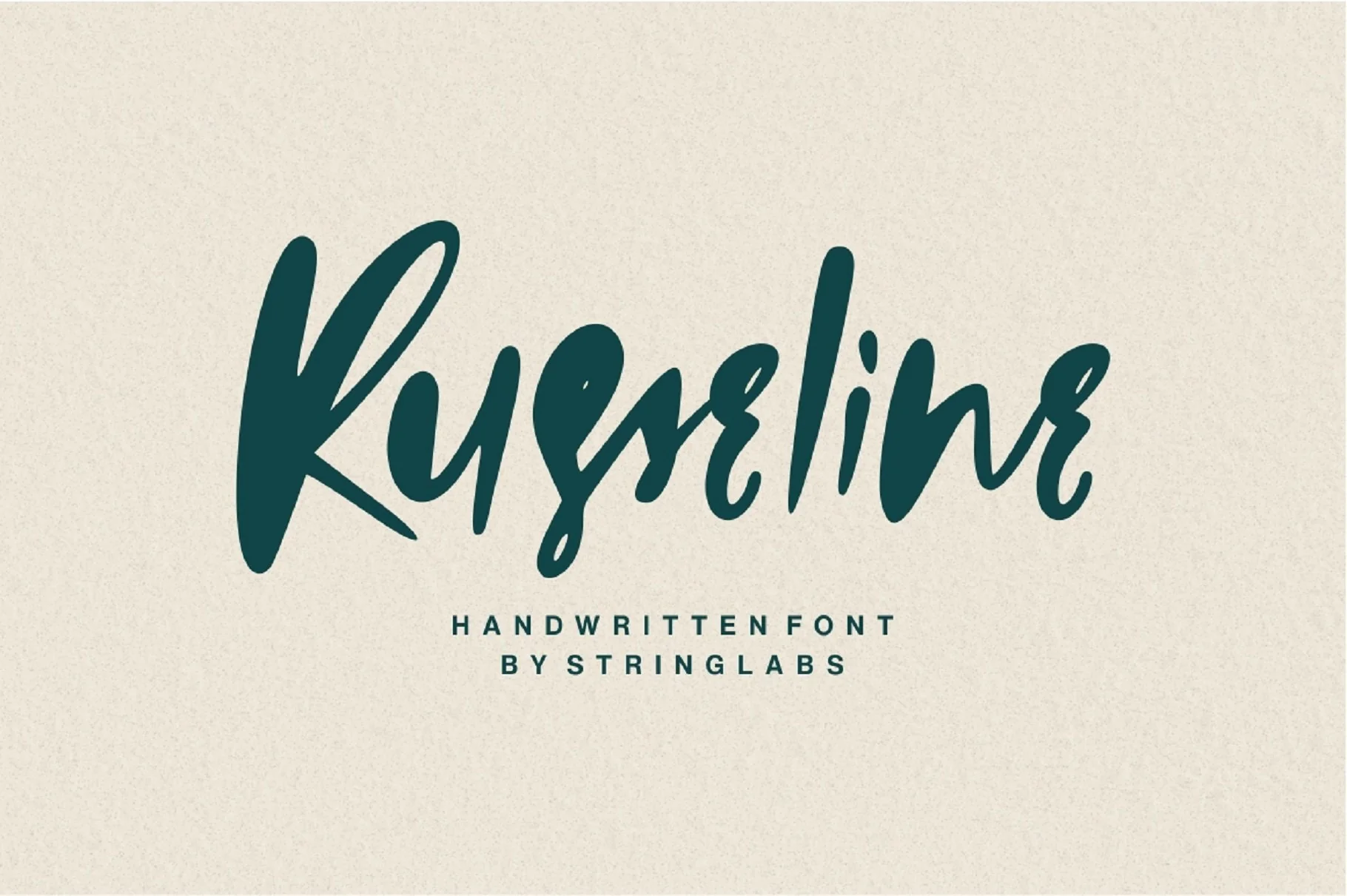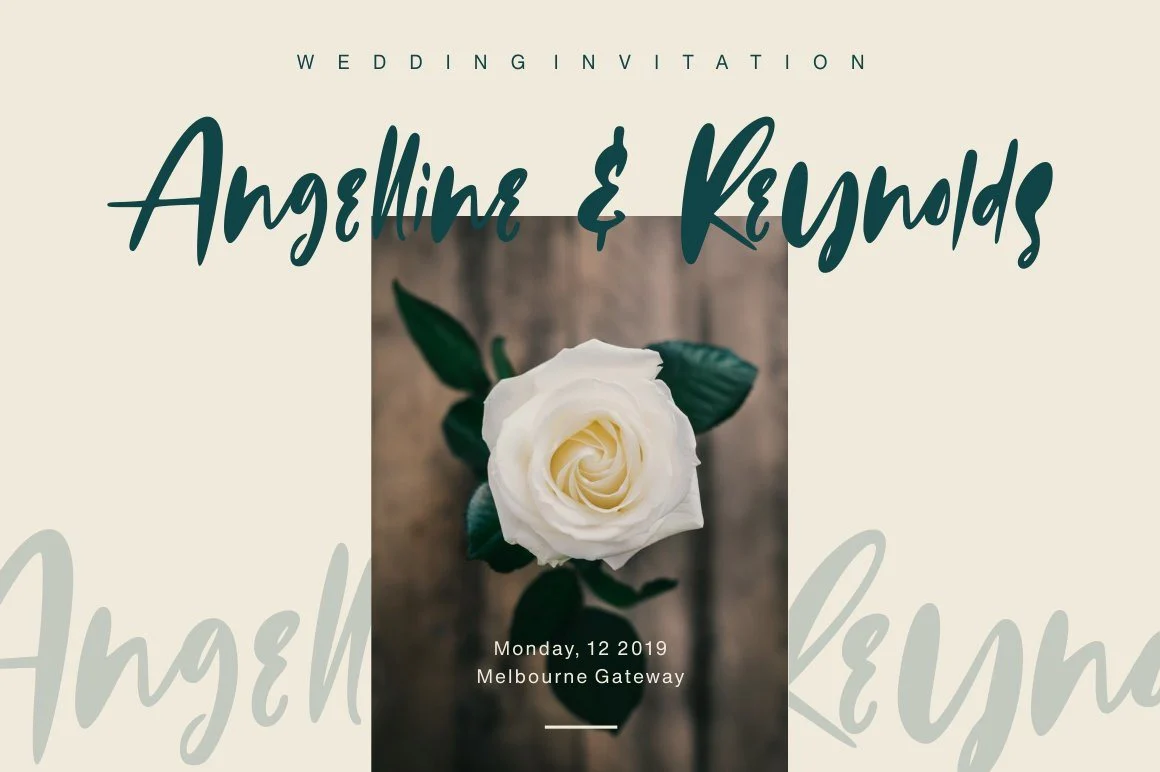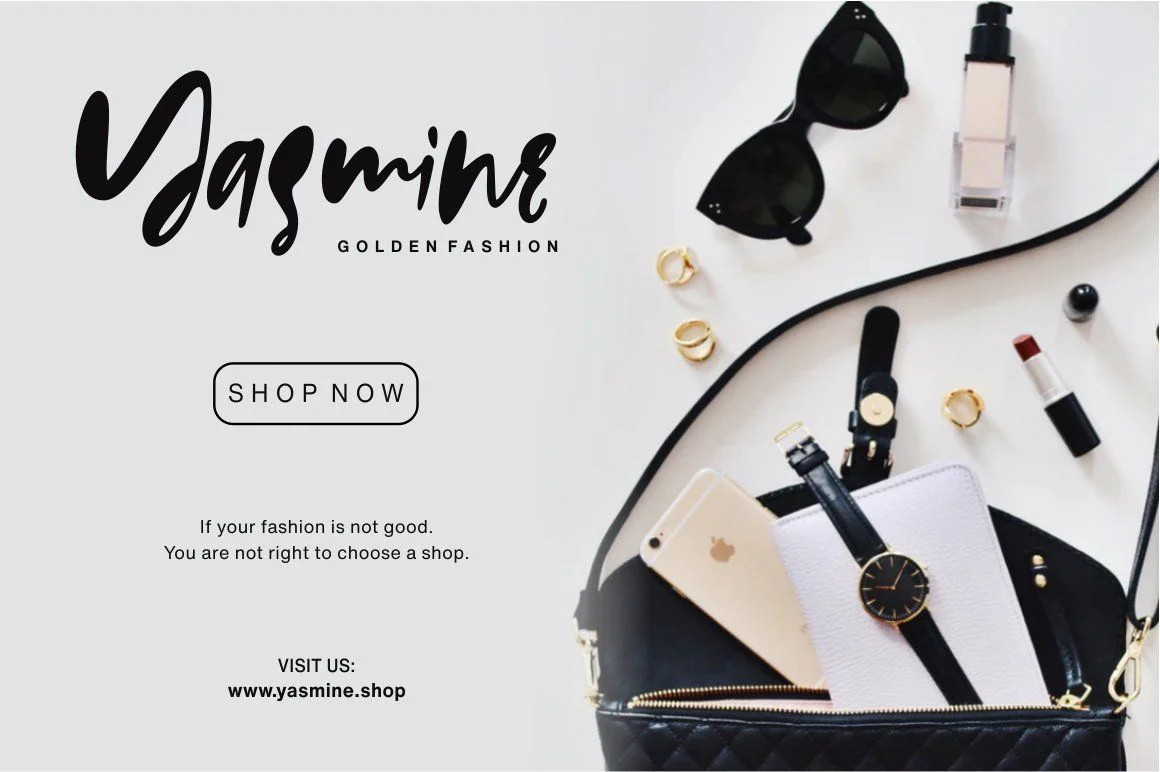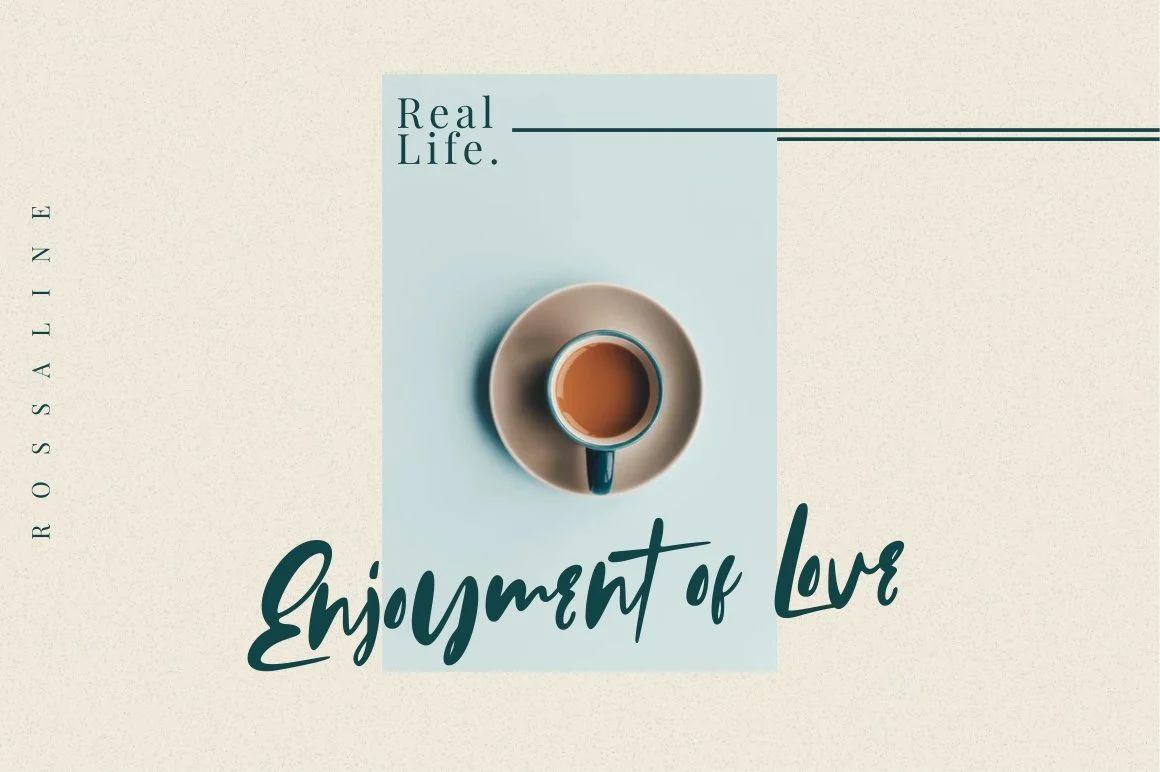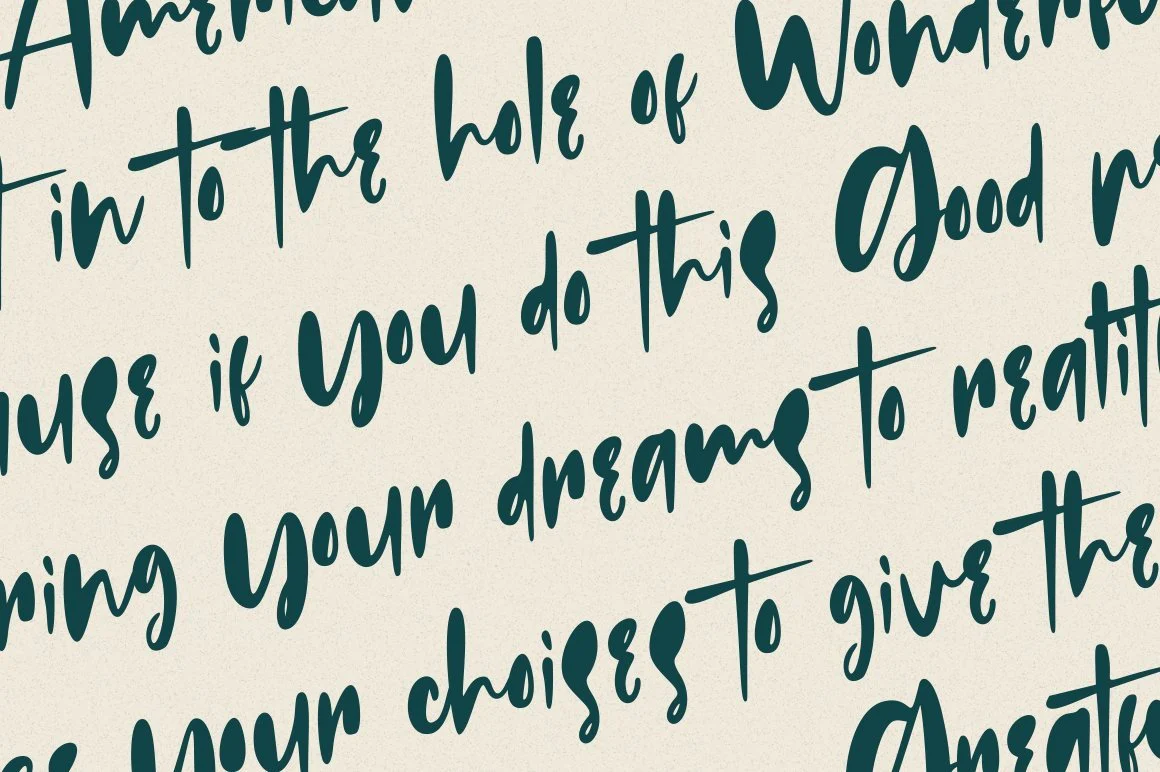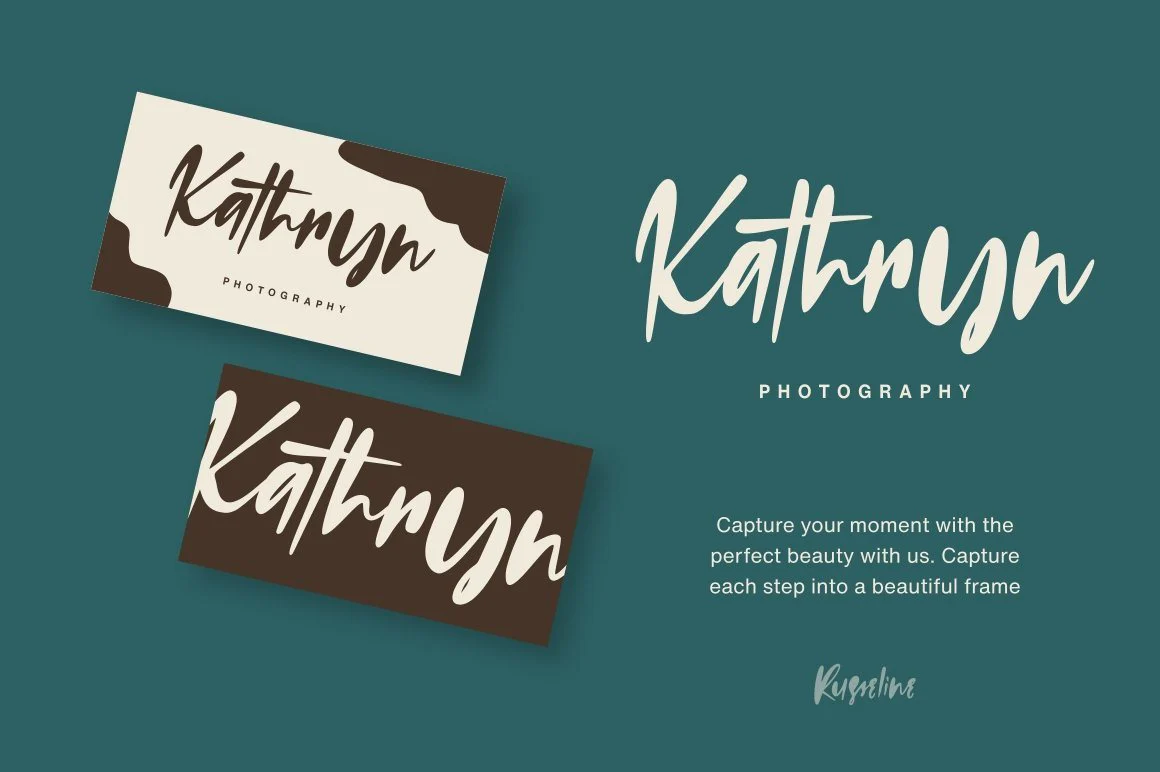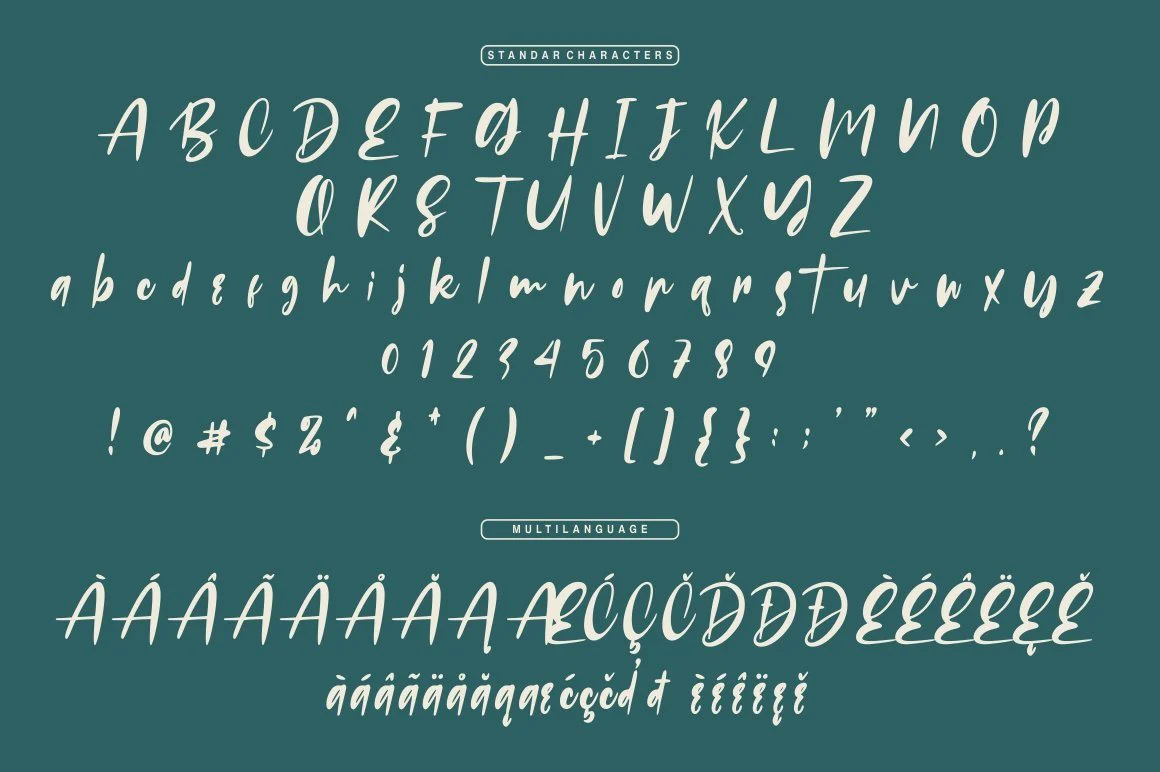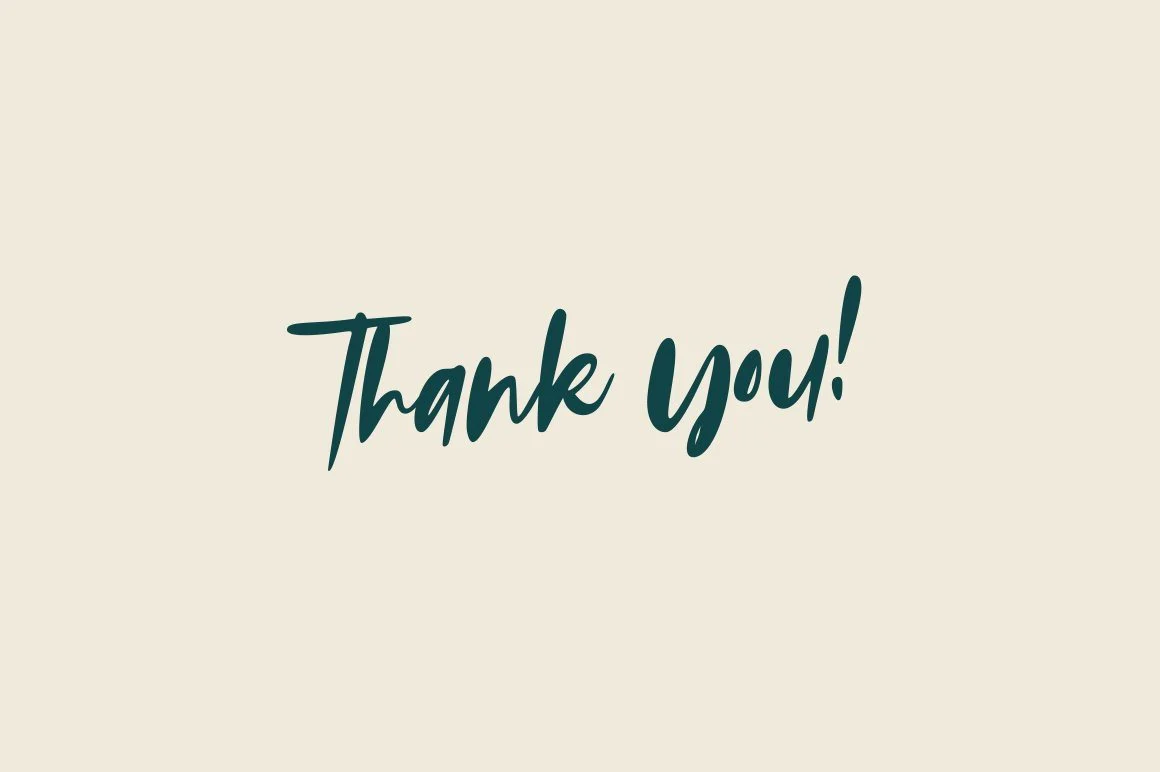
Russeline - Handwritten Font
Introducing Russeline - Handwritten Font
This Font can be used for any variety of purposes, such as: Â
Photography, Wedding, Ceremony, Packaging Products, Logo Type, Branding, T-Shirt Design, Website/Blog, Headline Magazine, Brochures and also can be used for personal purpose.
This Font Template contains Modern, Elegant, creative, Professional and Unique Concept.
- Uppercase & Lowercase letters